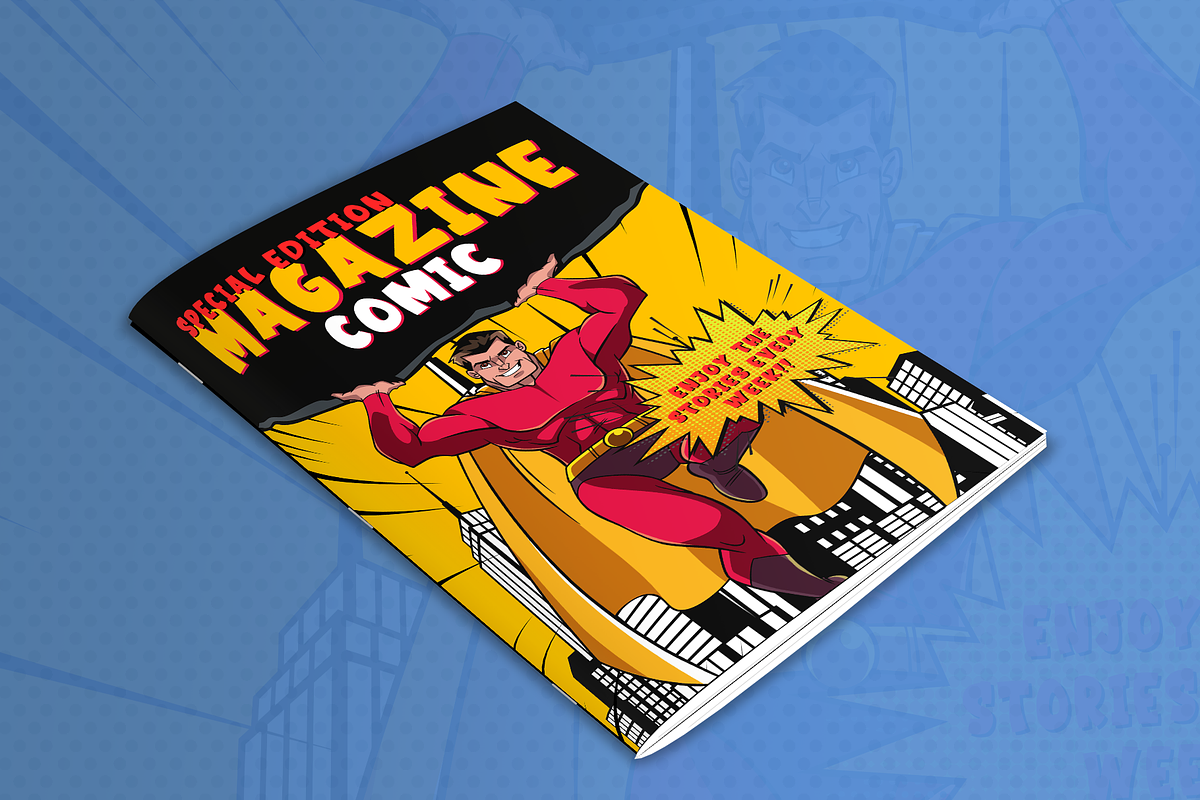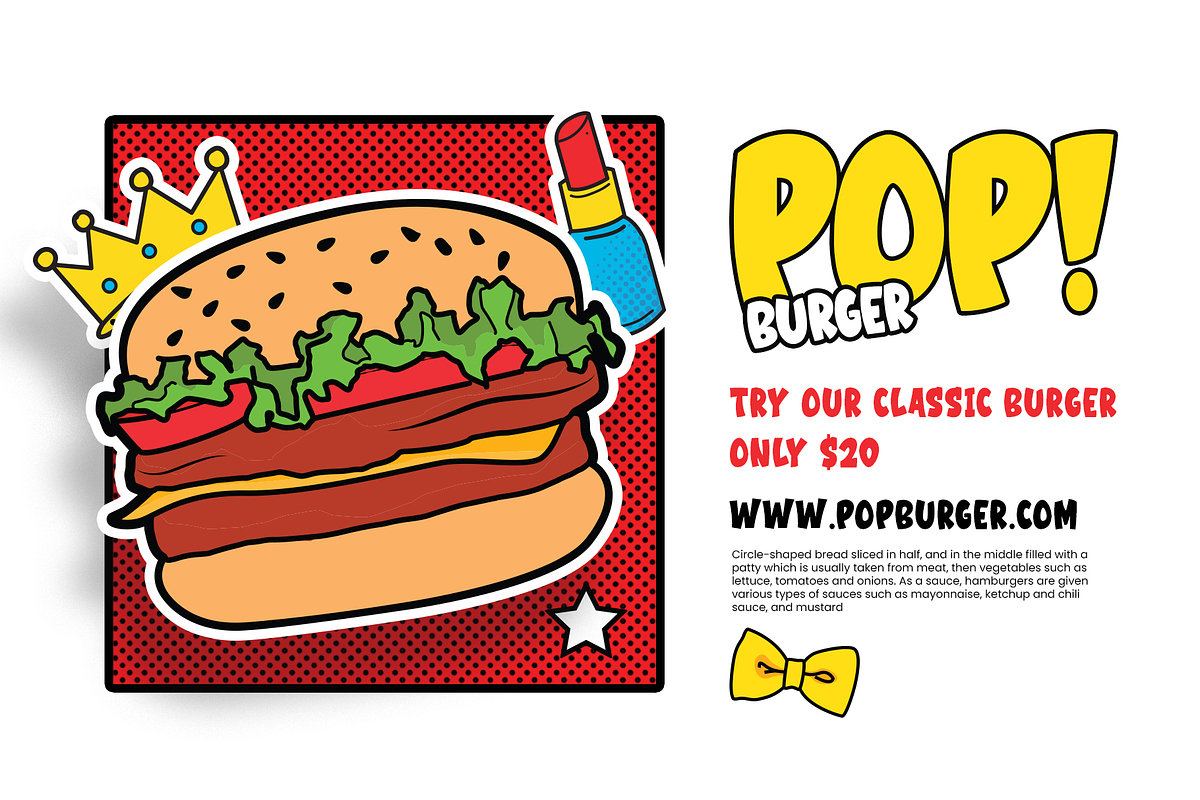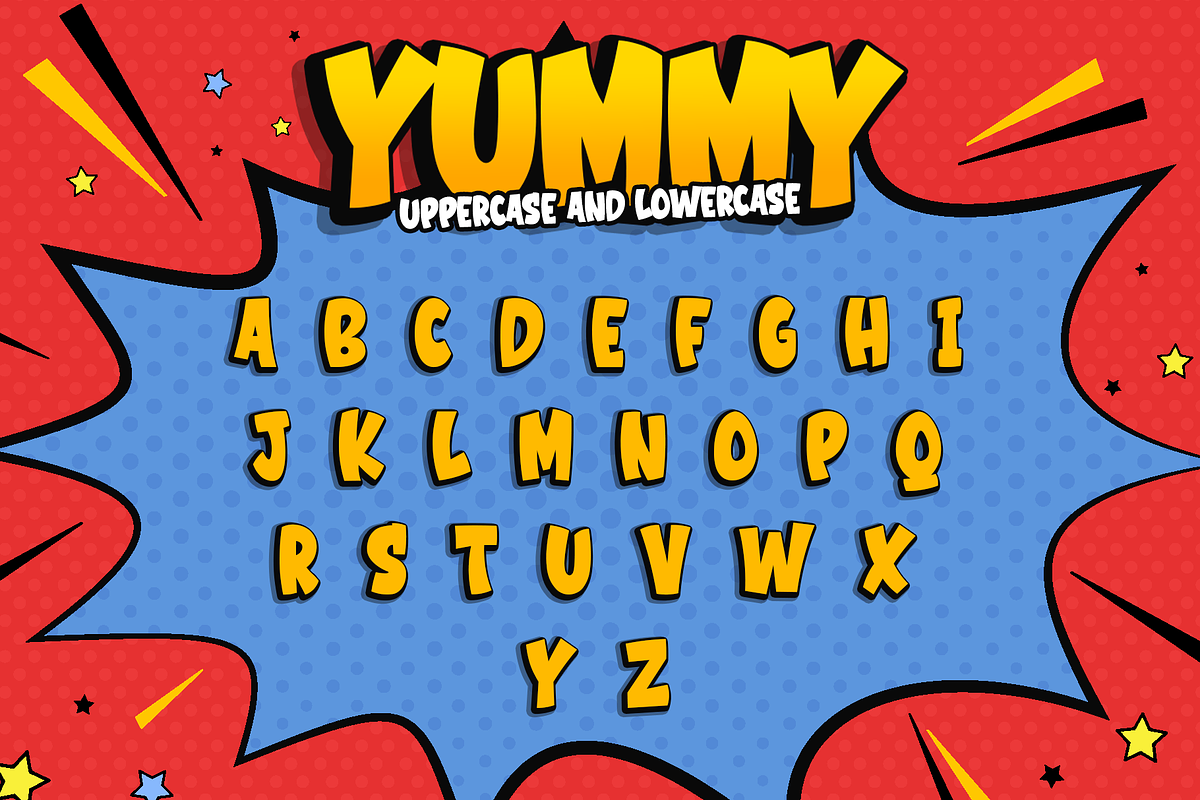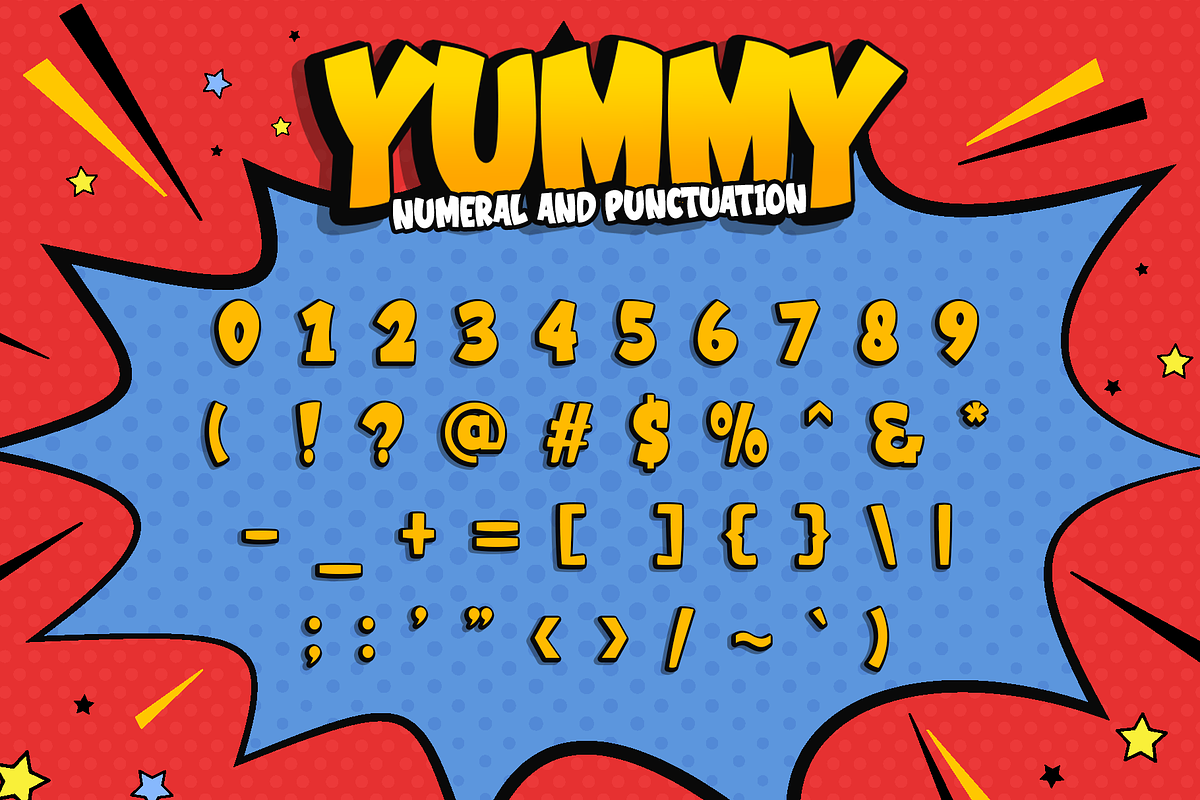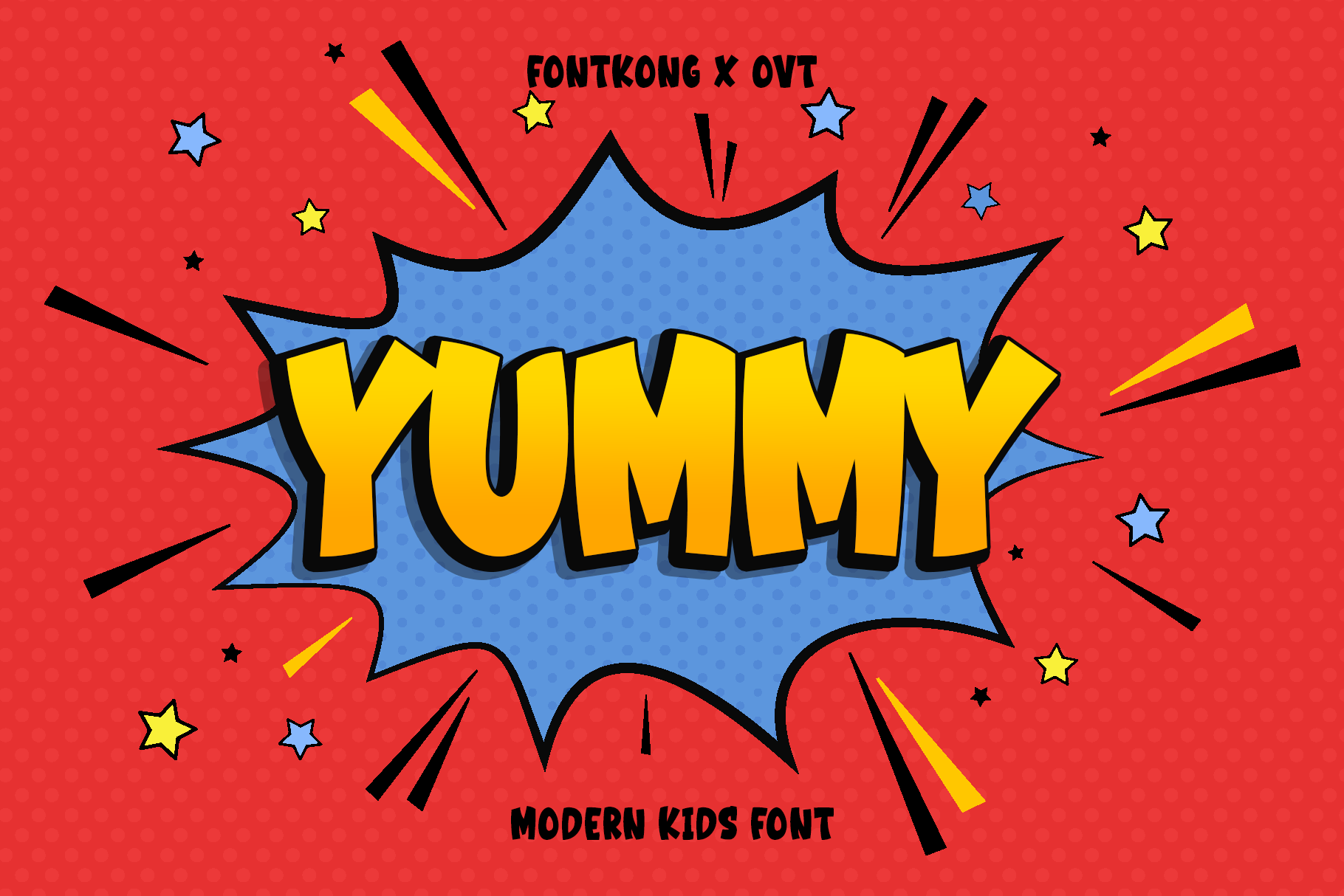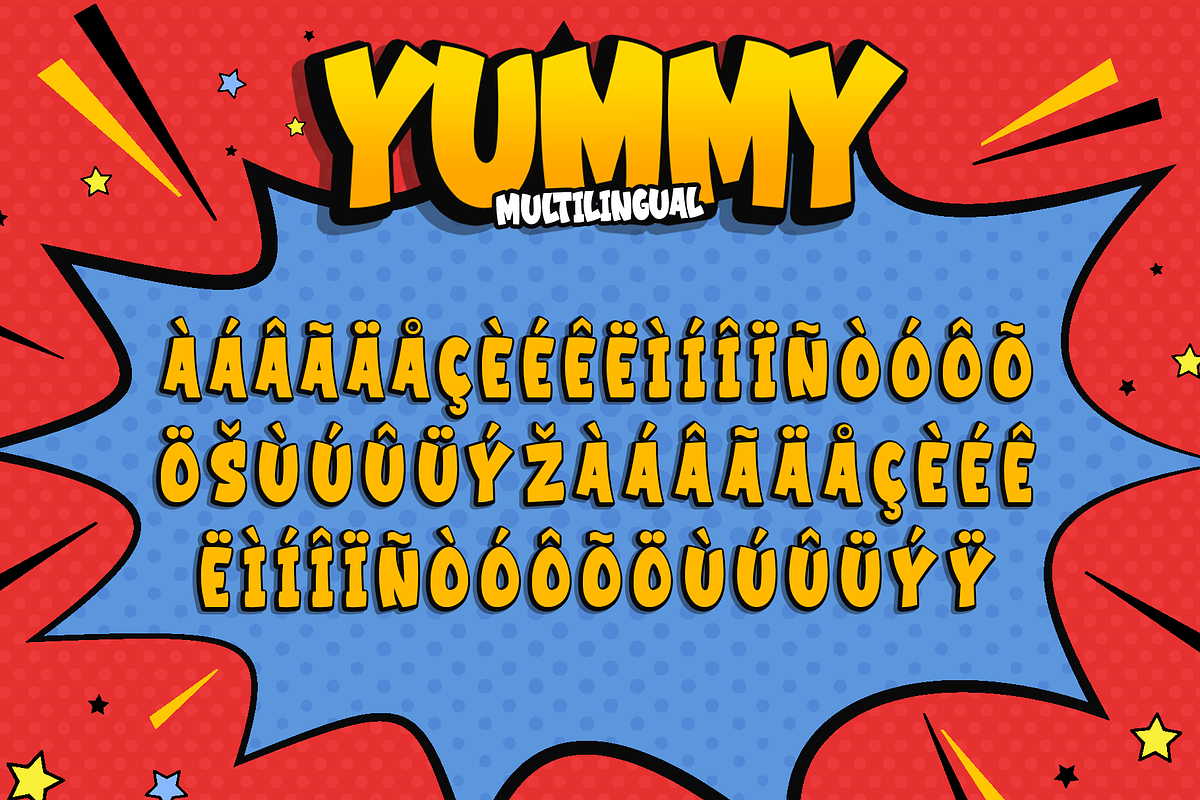
Yummy - Modern Kids Font
Introducing "Yummy," a modern kids font that brings a delightful and playful touch to any children's project. With its bubbly and cheerful design, "Yummy" is perfect for capturing the imagination of young minds and adding a sense of fun to your designs.
Ideal for children's books, educational materials, birthday invitations, playful branding, and more, "Yummy" ensures your text is engaging and accessible. The font features a full set of uppercase and lowercase letters, numerals, punctuation, and special characters, making it versatile and easy to use for various creative projects.
"Yummy" stands out with its friendly and whimsical style, making it a great choice for any project aimed at kids. Its readability and charm make it perfect for both digital and print applications, ensuring your designs are both captivating and effective.
"Yummy" is the perfect font to bring joy and excitement to your children's projects.